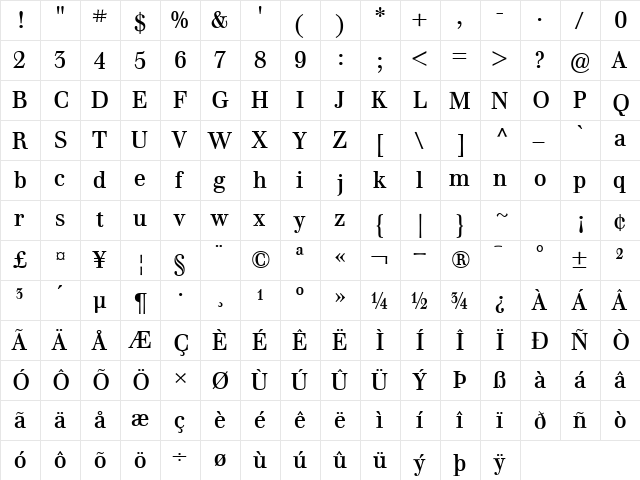
WalburnText Regular
WalburnText takes a measured approach to typography — its balanced proportions and neutral character make it a reliable workhorse for both digital and print work.